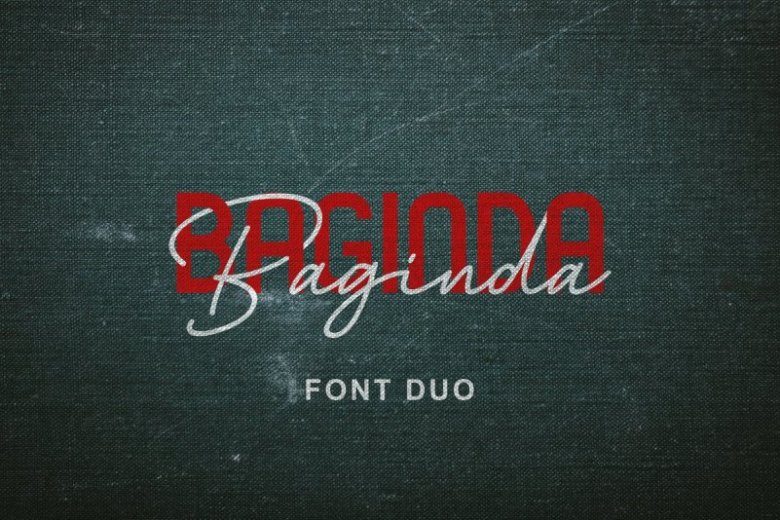
Baginda Font Duo
Hey there! This is a font duo consisting of script/signature and sans-serif fonts, with a style that looks luxurious. Introducing Baginda Script Font Demo. Baginda designed and shared by zuzulgo. BagindaFont Duo -e very font come with 2 styles regular and oblique. Specifically for the script font was made with a natural look of handwriting in a style that looks like a mess but has a special appeal. The Baginda Font Duo is perfect for branding, logo, magazine cover, wedding invitation and a lot more.